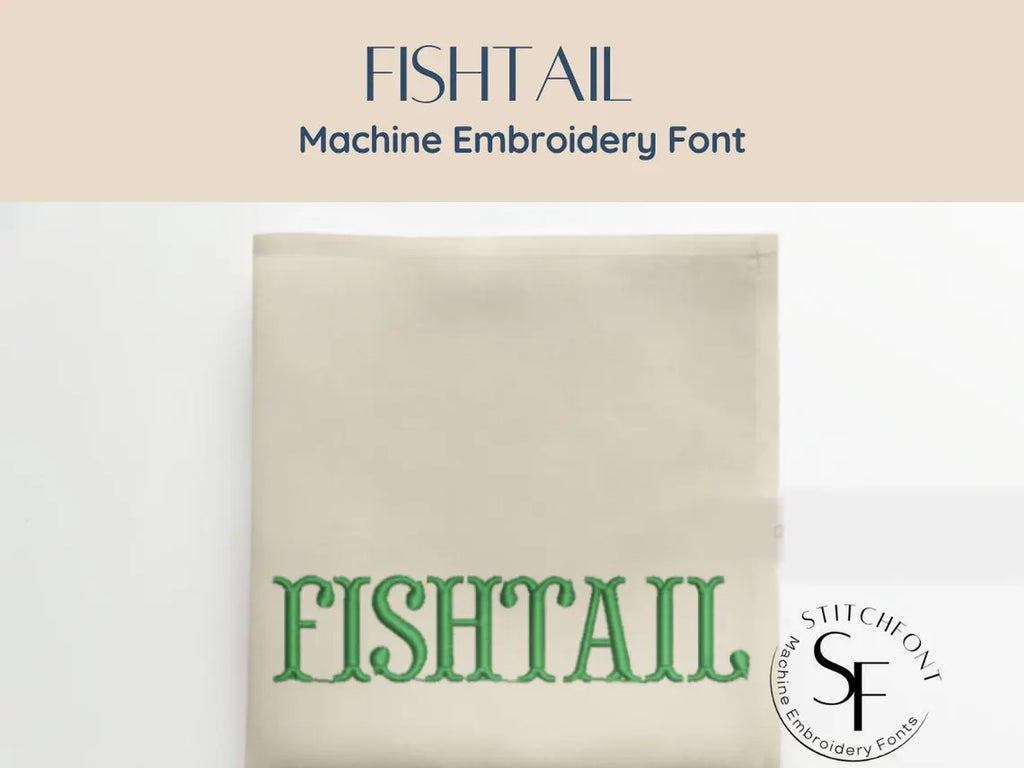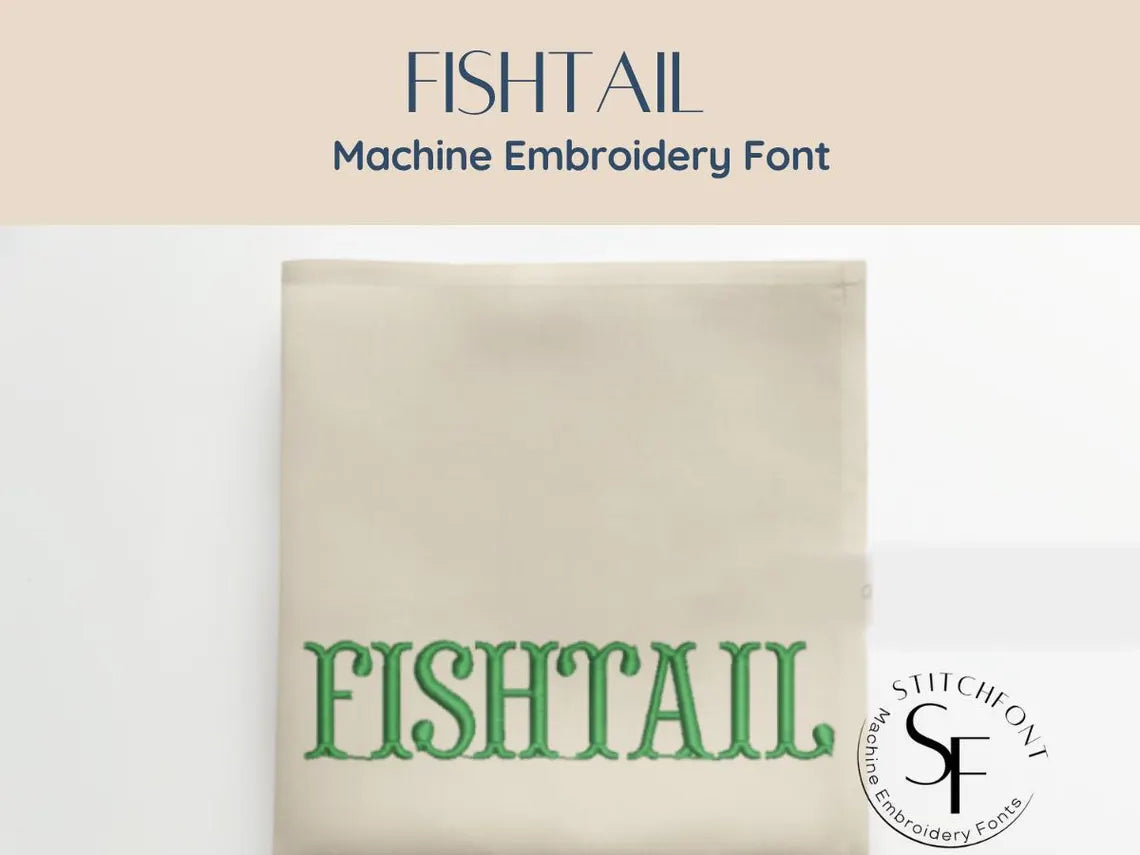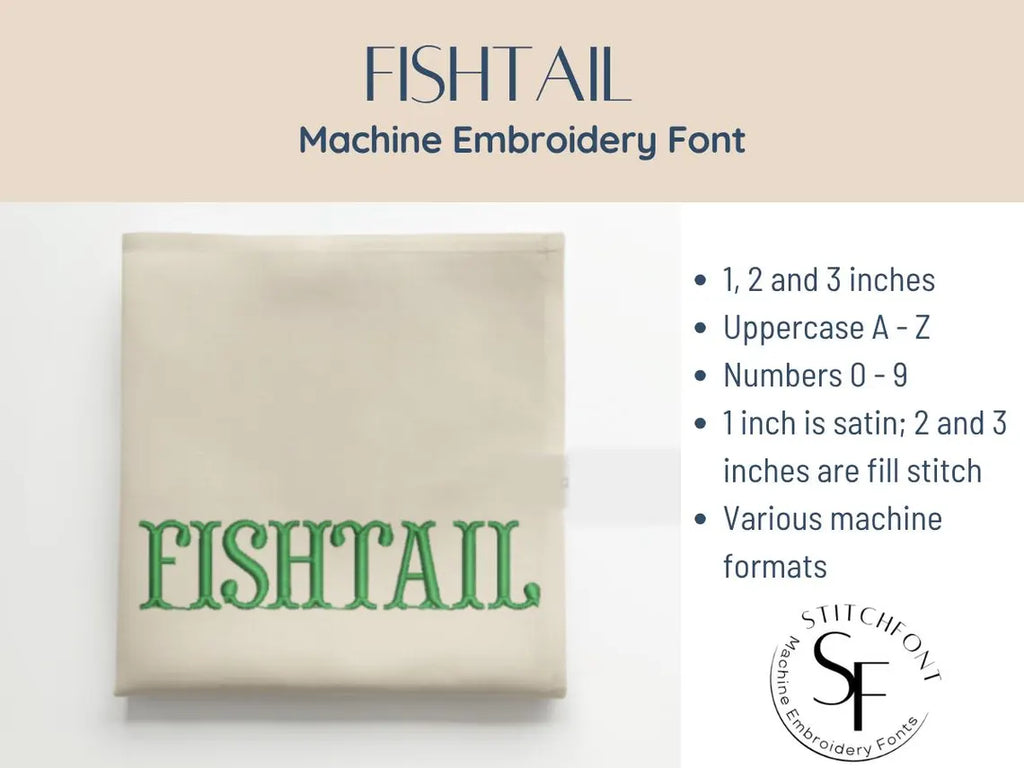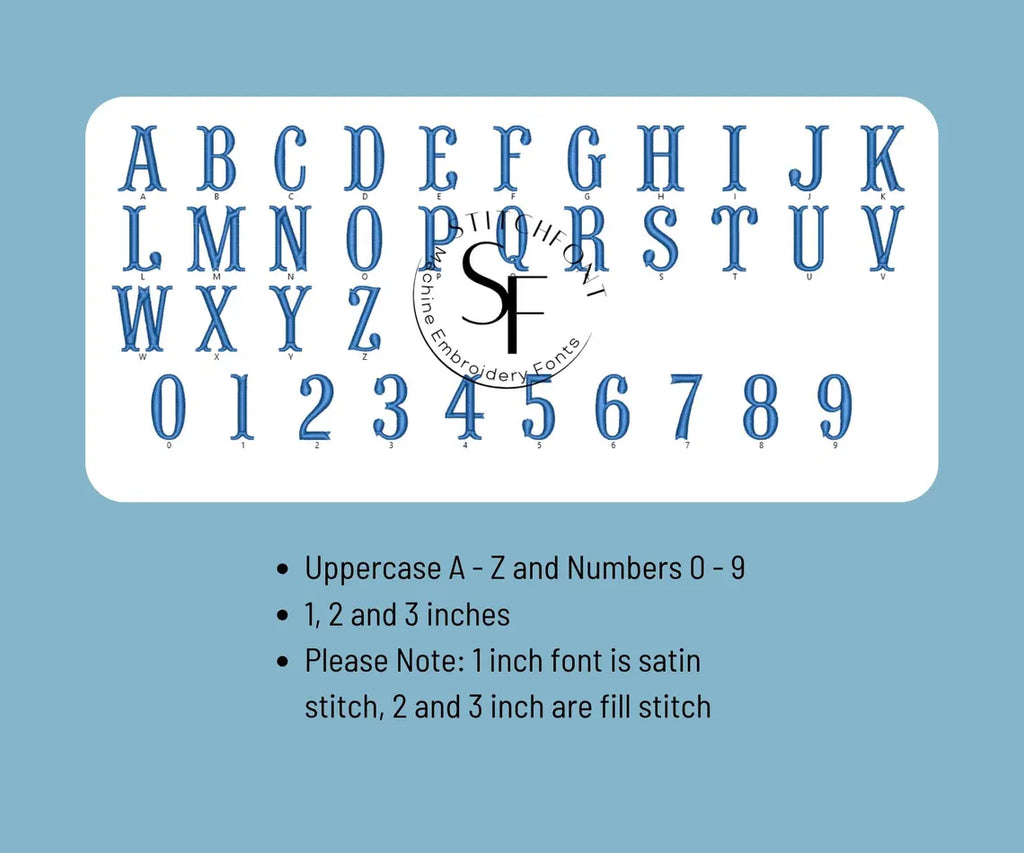
Machine Embroidery Satin and Fill Stitch Font - Fishtail - 3 sizes - 8 formats
🐠 Fishtail Embroidery Font – Bold, Fun, and Full of Character 🐠
Make a statement with the Fishtail Font – a unique and playful alphabet that adds personality to your embroidery designs. With its bold lines and quirky curves, this font is perfect for kids’ projects, home décor, and eye-catching monograms.
* Sizes: 1", 2", and 3"
* Stitch Types:
• 1" – Satin Stitch
• 2" & 3" – Fill Stitch for crisp, dense coverage
* Full Uppercase Alphabet (A–Z)
* Numbers 0–9
✨ Perfect For:
* Personalized pillows, backpacks & towels
* Nursery or classroom décor
* Creative, high-contrast lettering projects
💖 Why You’ll Love It:
* Fun and versatile with a clean finish
* Mix-and-match sizes for dynamic designs